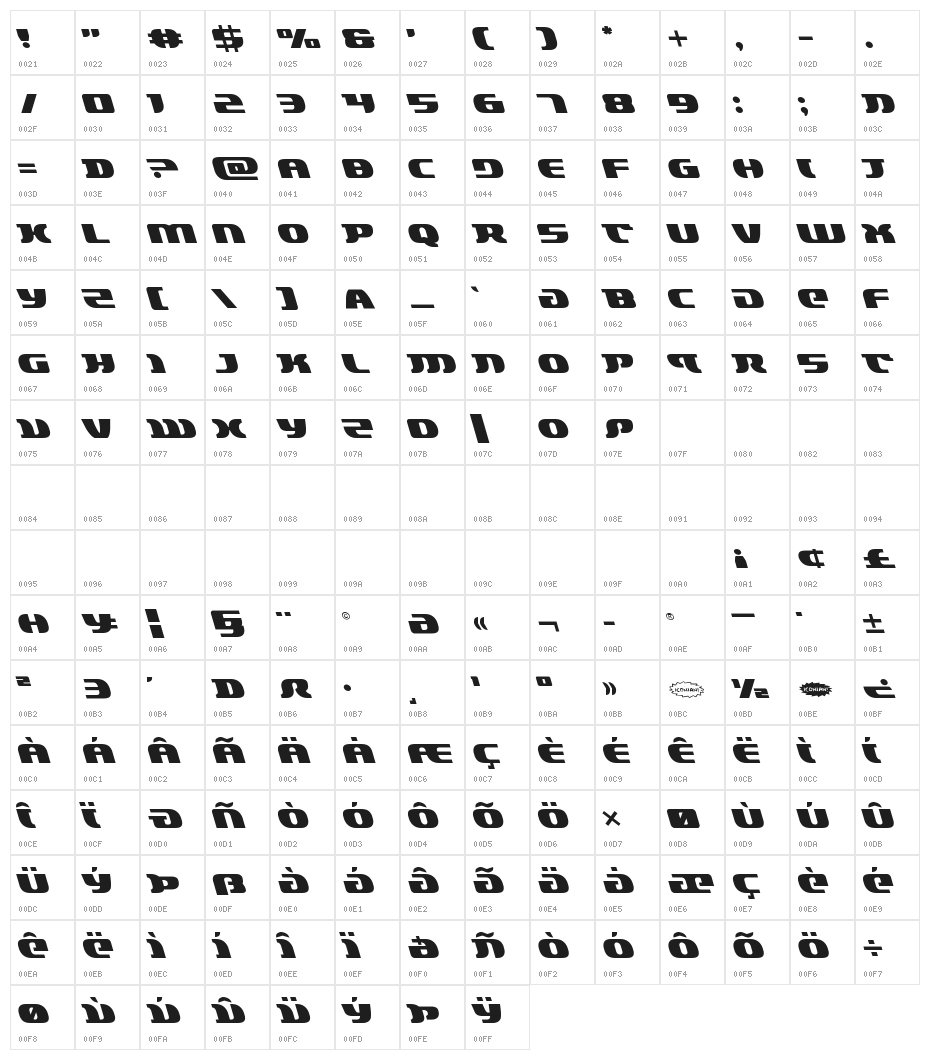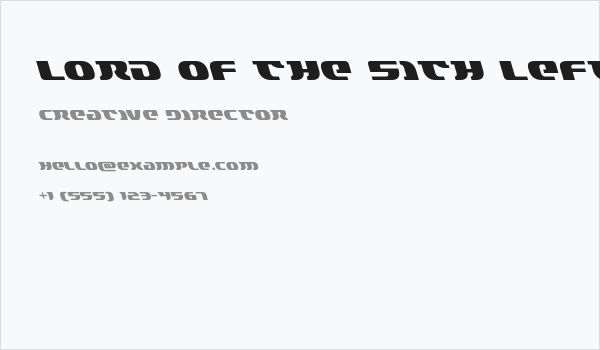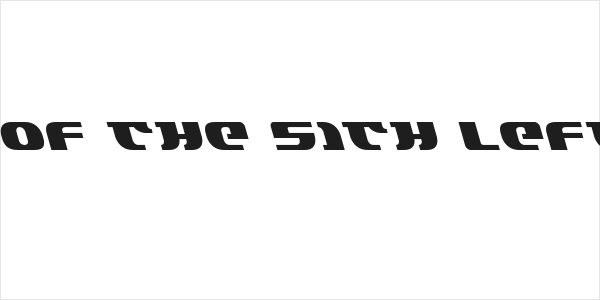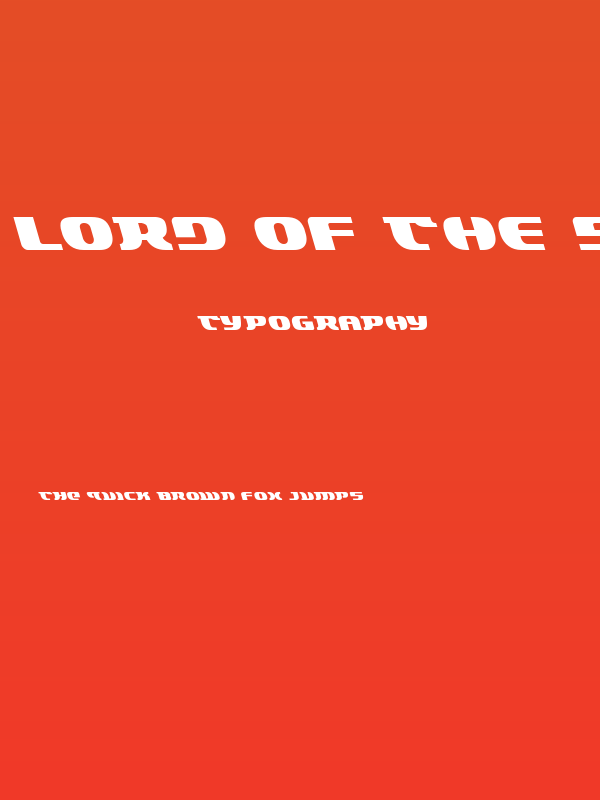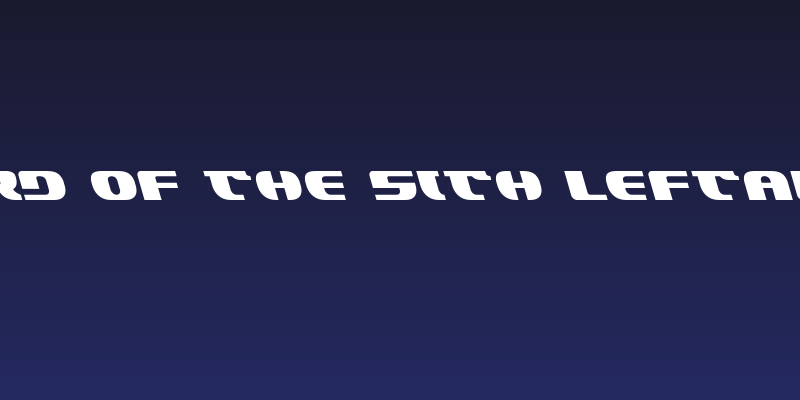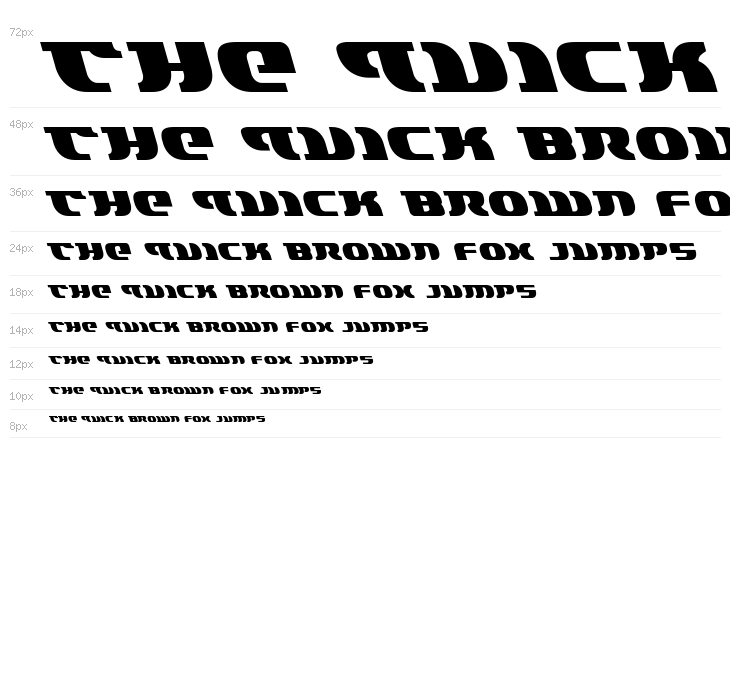
Lord of the Sith Leftalic Font
Lord of the Sith Leftalic Description
This font features a bold and futuristic design with a distinct slant to the left, giving it a dynamic and energetic appearance. The characters are wide and have a strong presence, making them ideal for impactful headlines. The strokes are thick and consistent, with minimal contrast, emphasizing a modern and robust aesthetic. The angular cuts and geometric shapes within the letters add a unique and edgy flair, suitable for projects that require a bold statement. The font maintains a consistent weight throughout, ensuring readability while retaining its distinctive style.
WidthExpanded
Overall StyleFuturistic, Modern
Proposed ProjectsIdeal for sci-fi themed posters, video game titles, branding for tech companies, and any project needing a modern, bold statement.